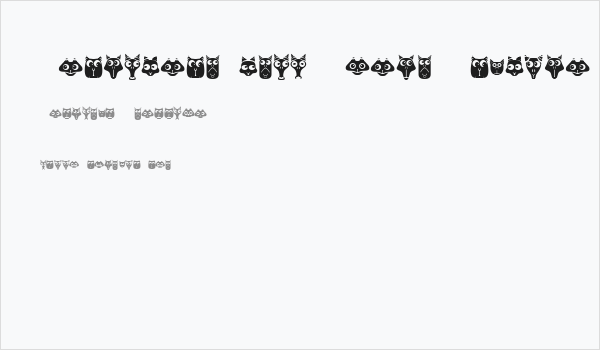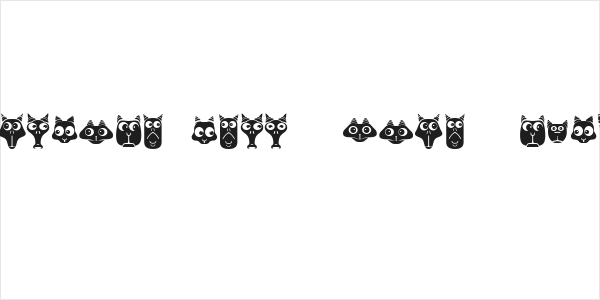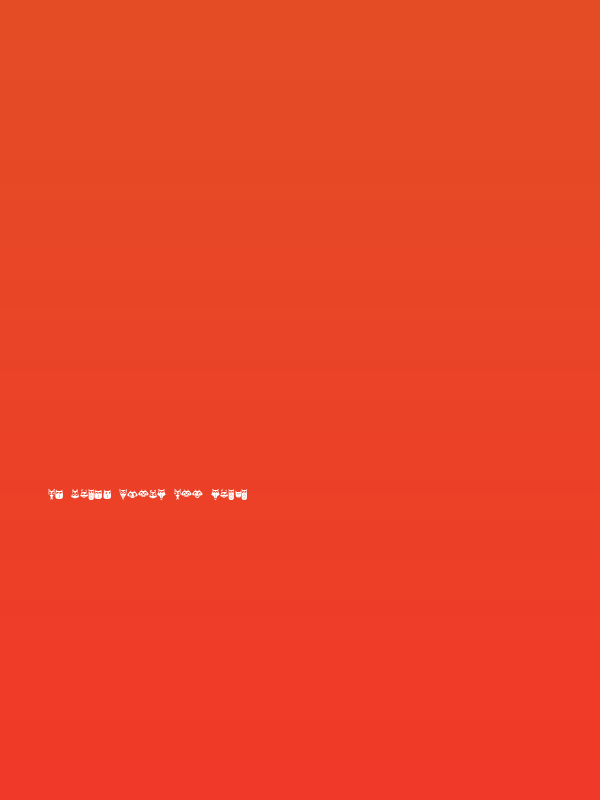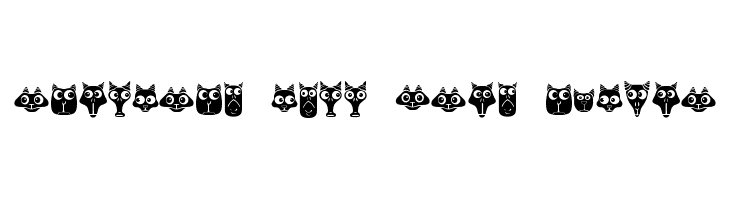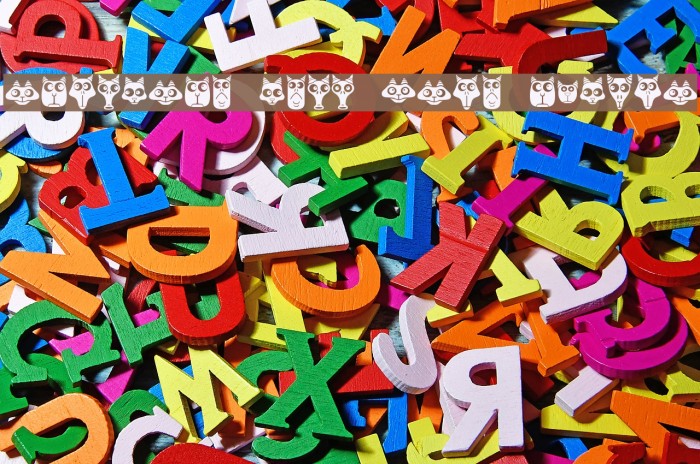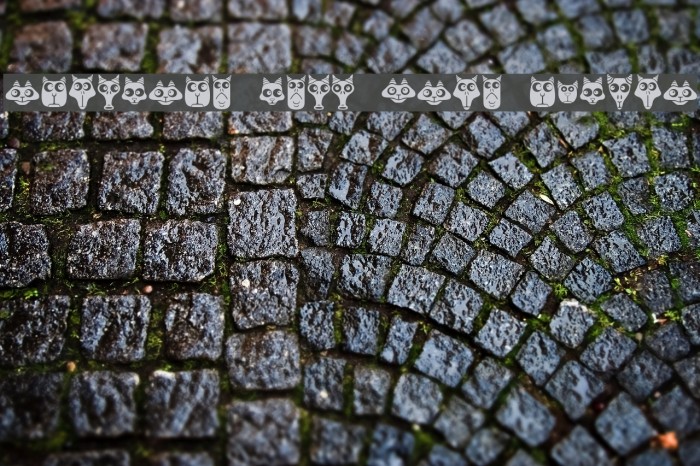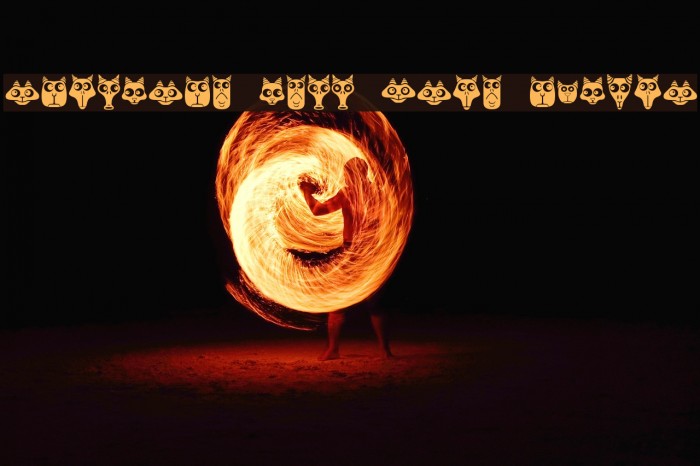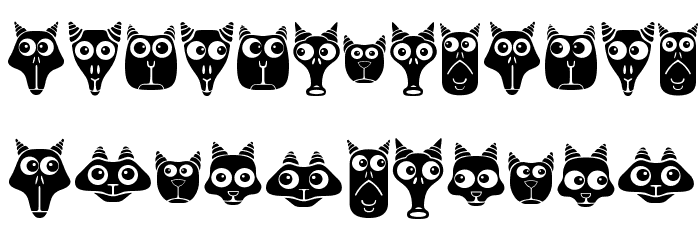
Creatures with Horns Regular Font
Creatures with Horns Regular Description
This font features a series of whimsical, cartoonish creature faces, each adorned with distinct horns. The characters are highly decorative, with exaggerated facial features and playful expressions. The design is bold and eye-catching, making it ideal for creative projects that require a touch of humor and fantasy. The creatures' faces are uniform in size, providing a consistent visual rhythm across the text. This font is perfect for adding a unique, artistic flair to any design, especially those aimed at children or fantasy themes.
| Use Case | Logos, Posters, Creative Invitations |
| Proposed Projects | Ideal for children's books, fantasy-themed posters, playful branding, and creative invitations. |